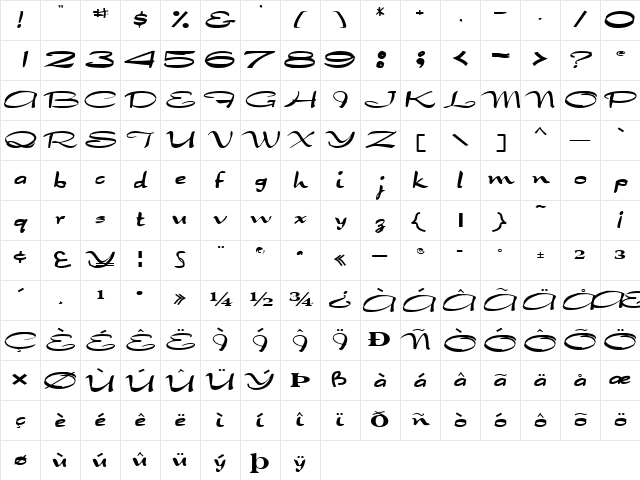
TabithaType32 Regular
Design Context for TabithaType32
TabithaType32 is a composed and adaptable typeface that performs quietly and consistently across a wide range of design contexts.